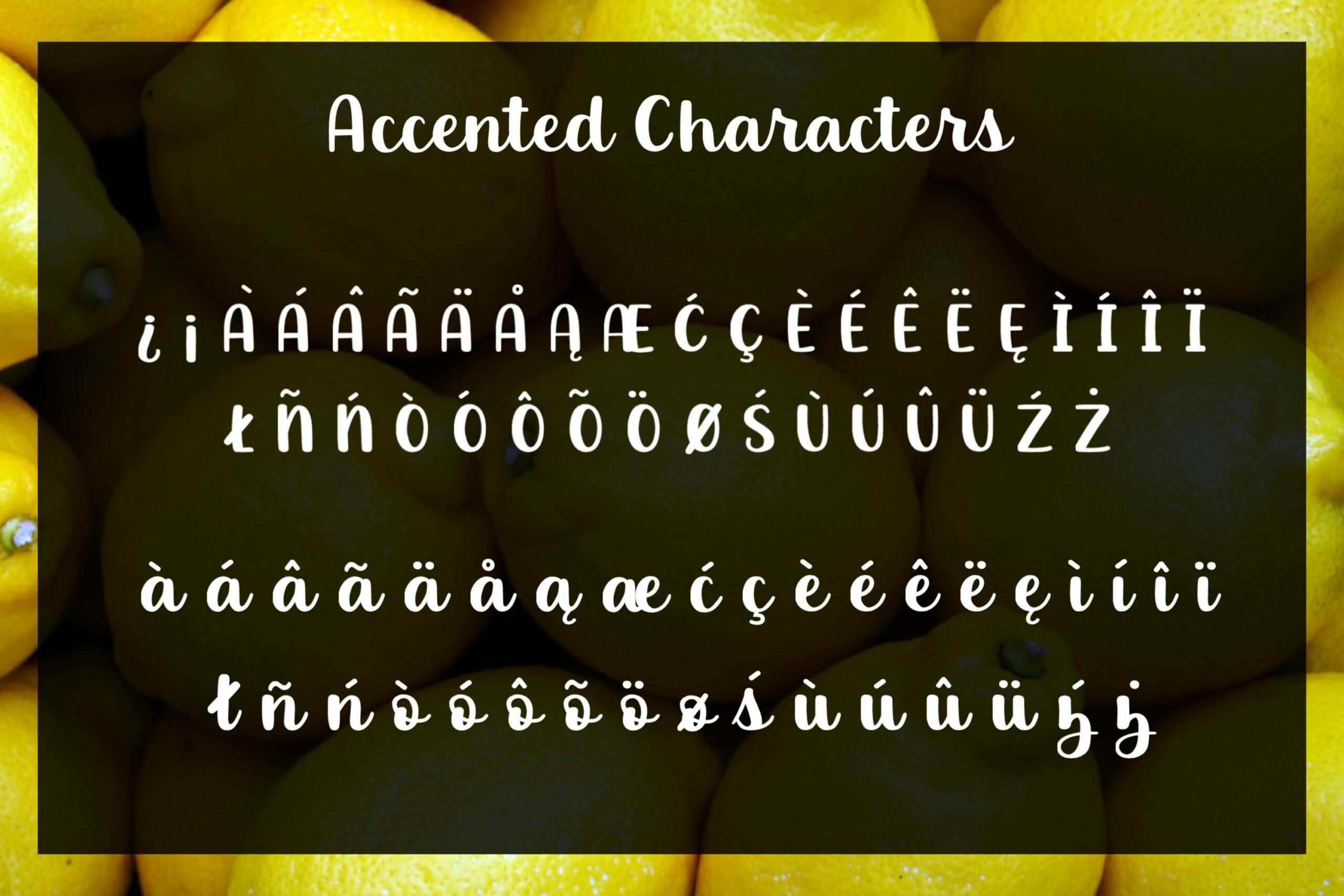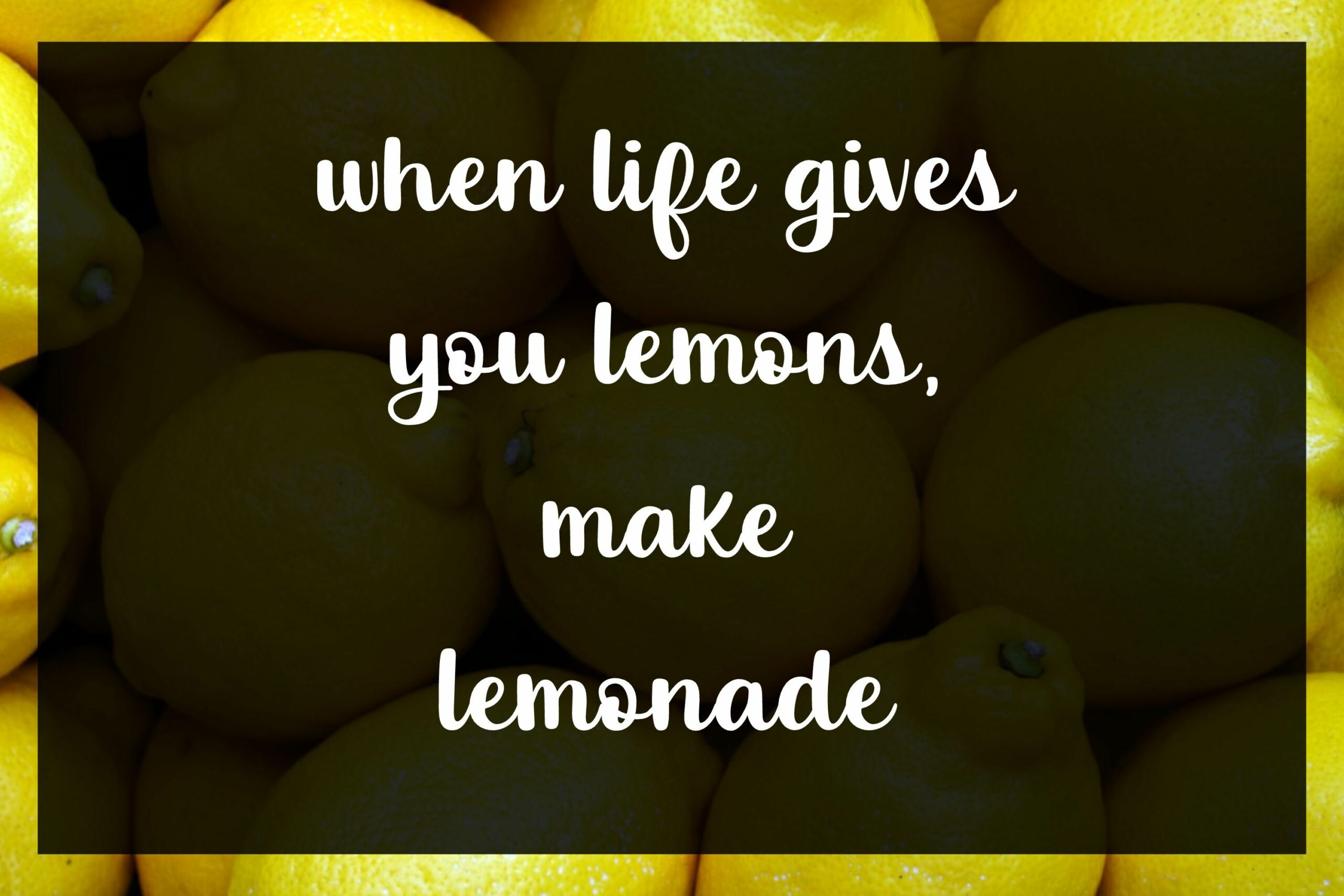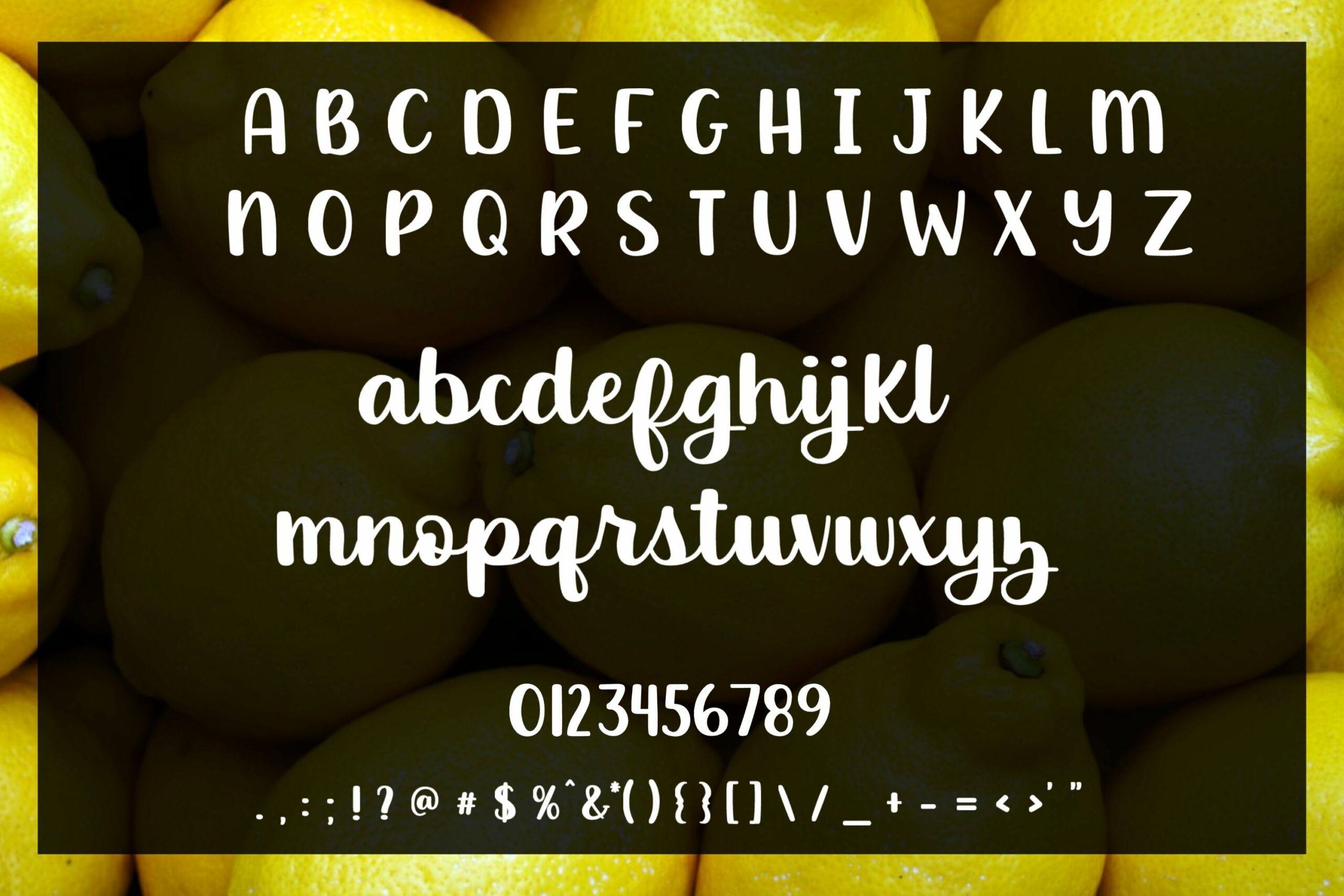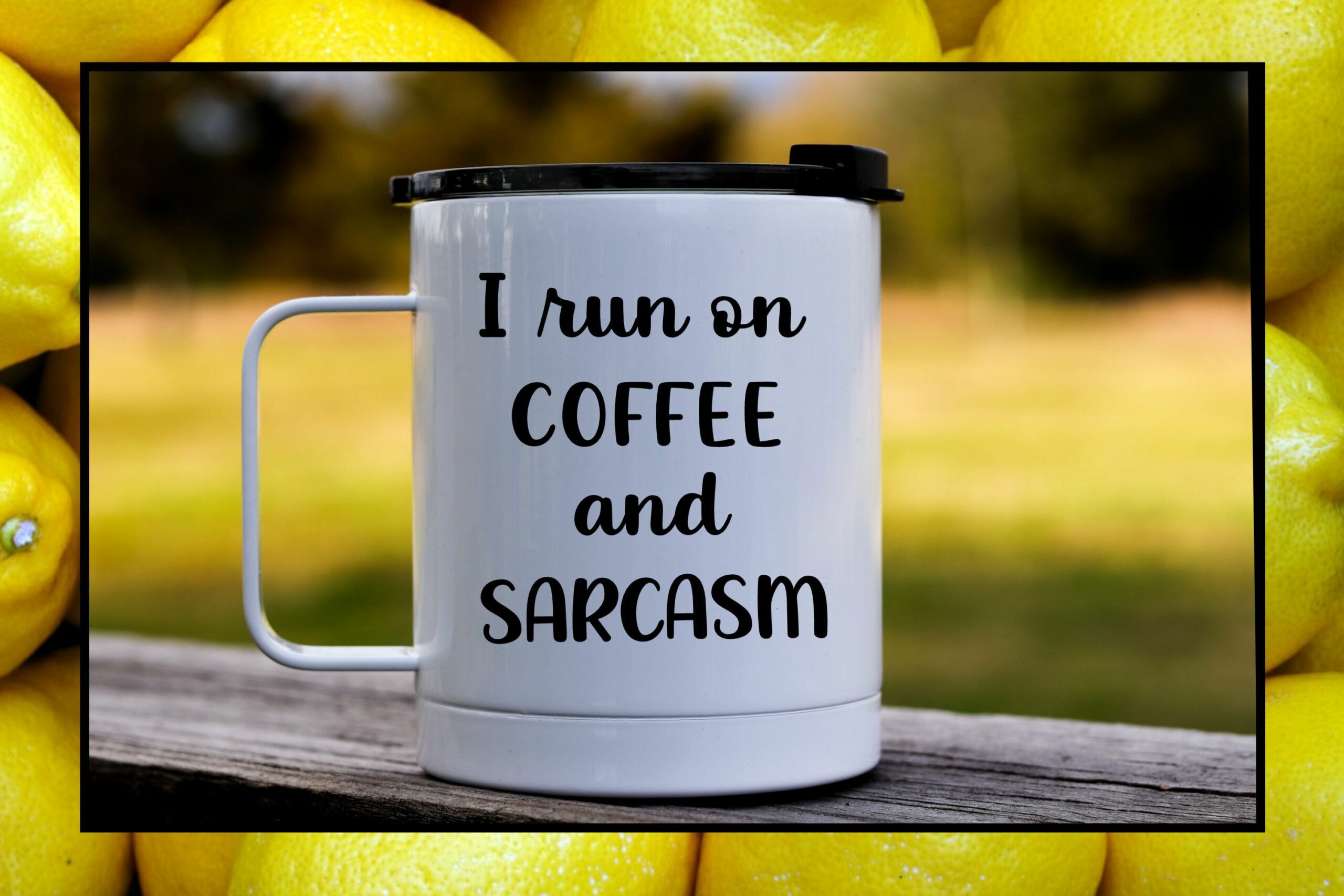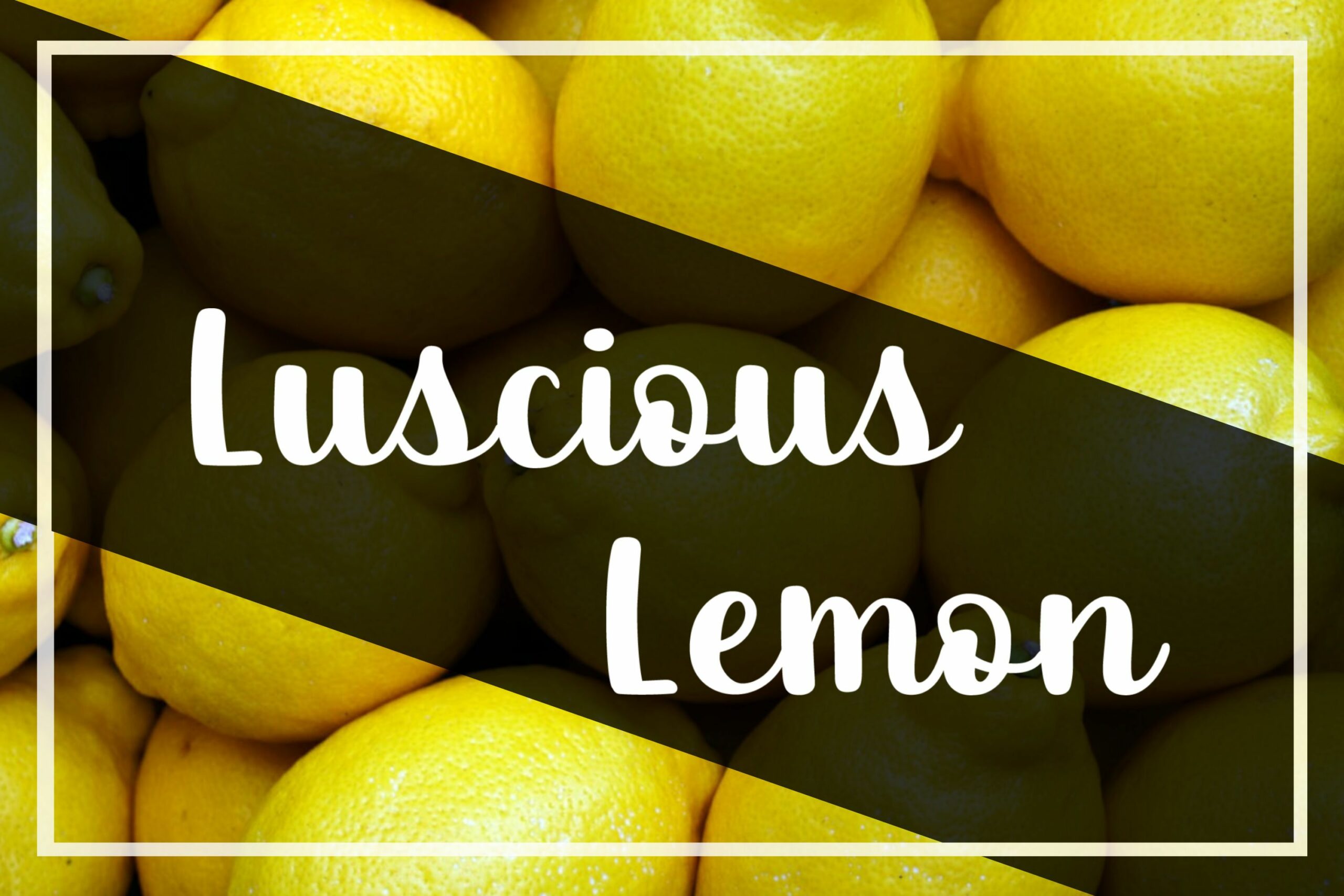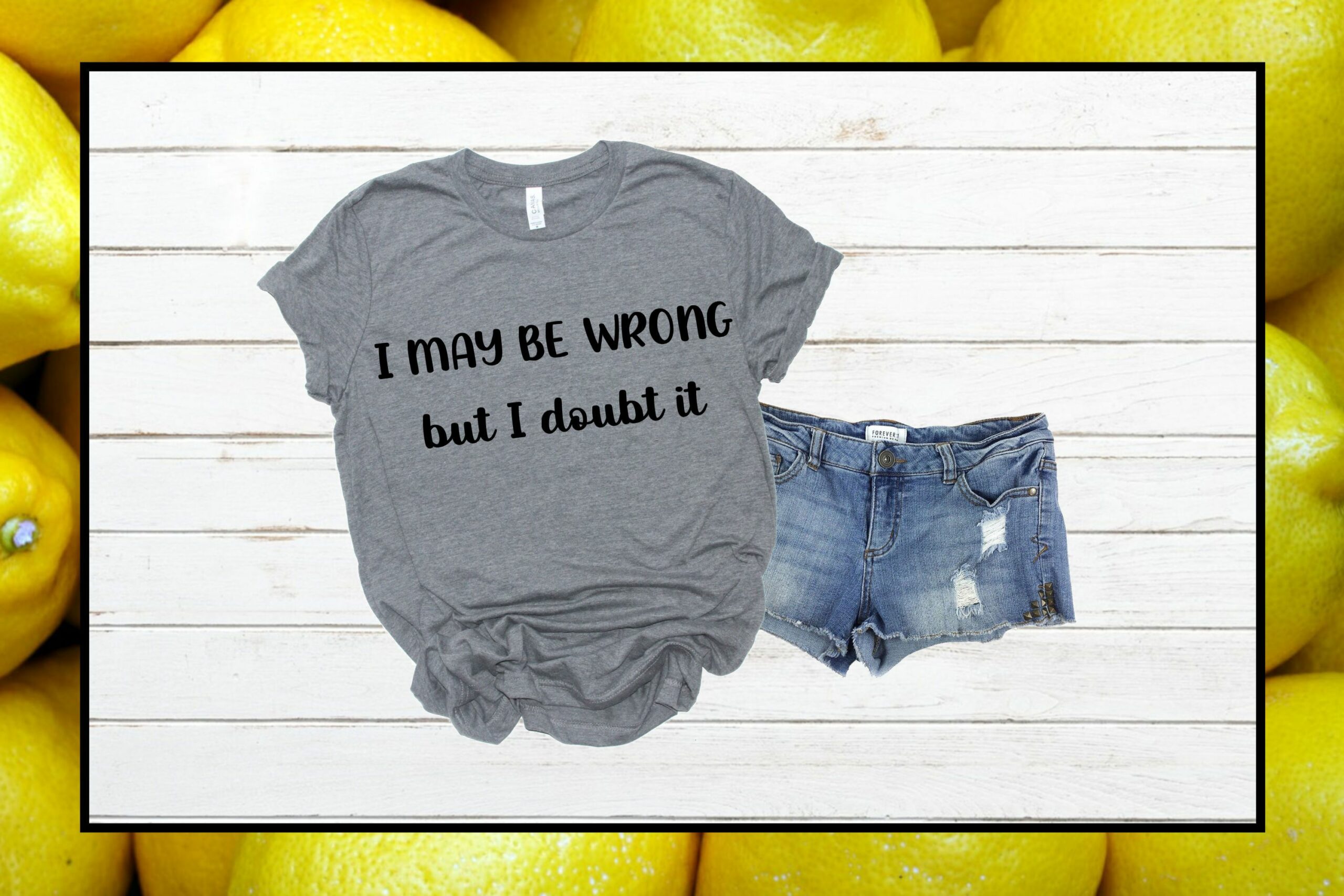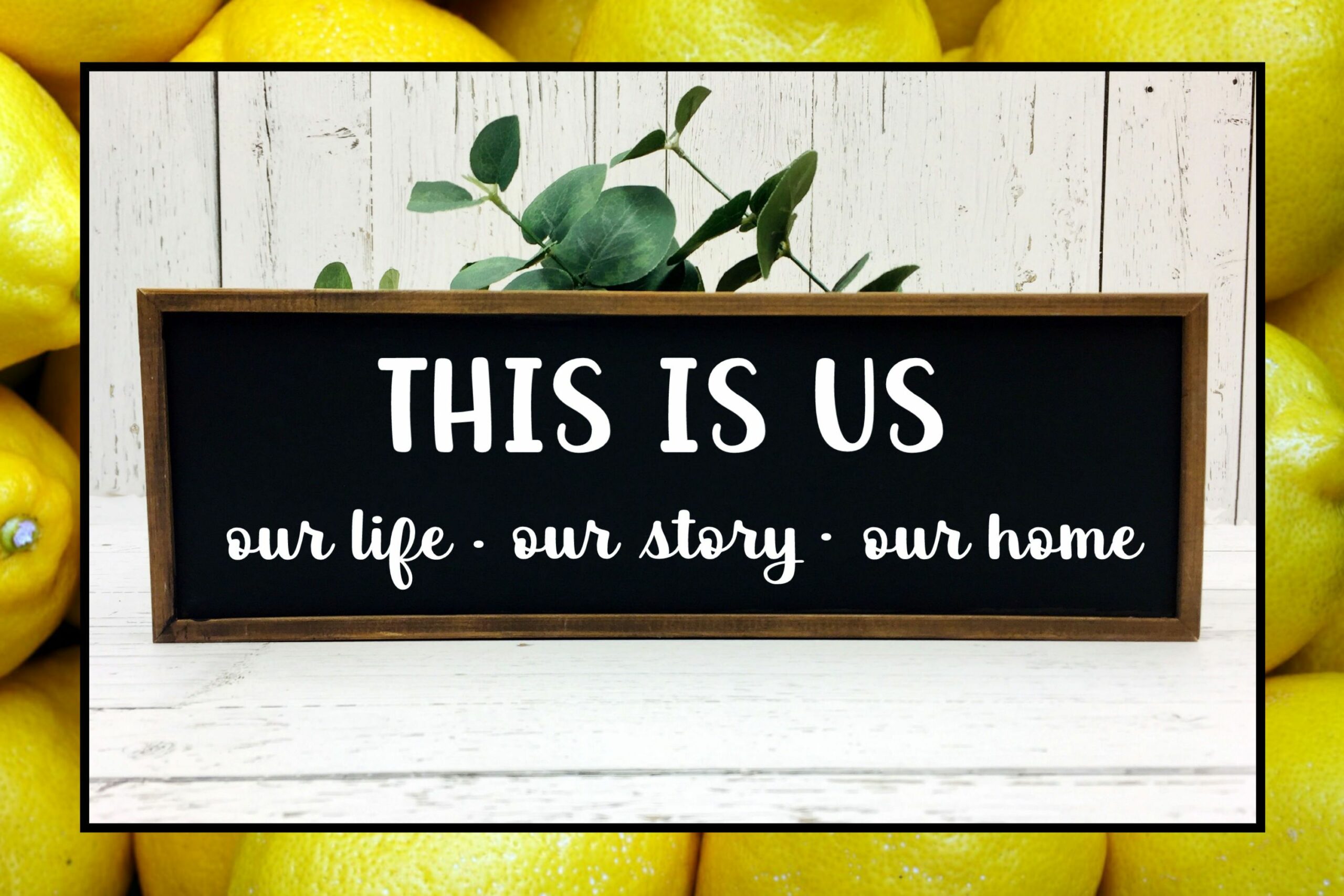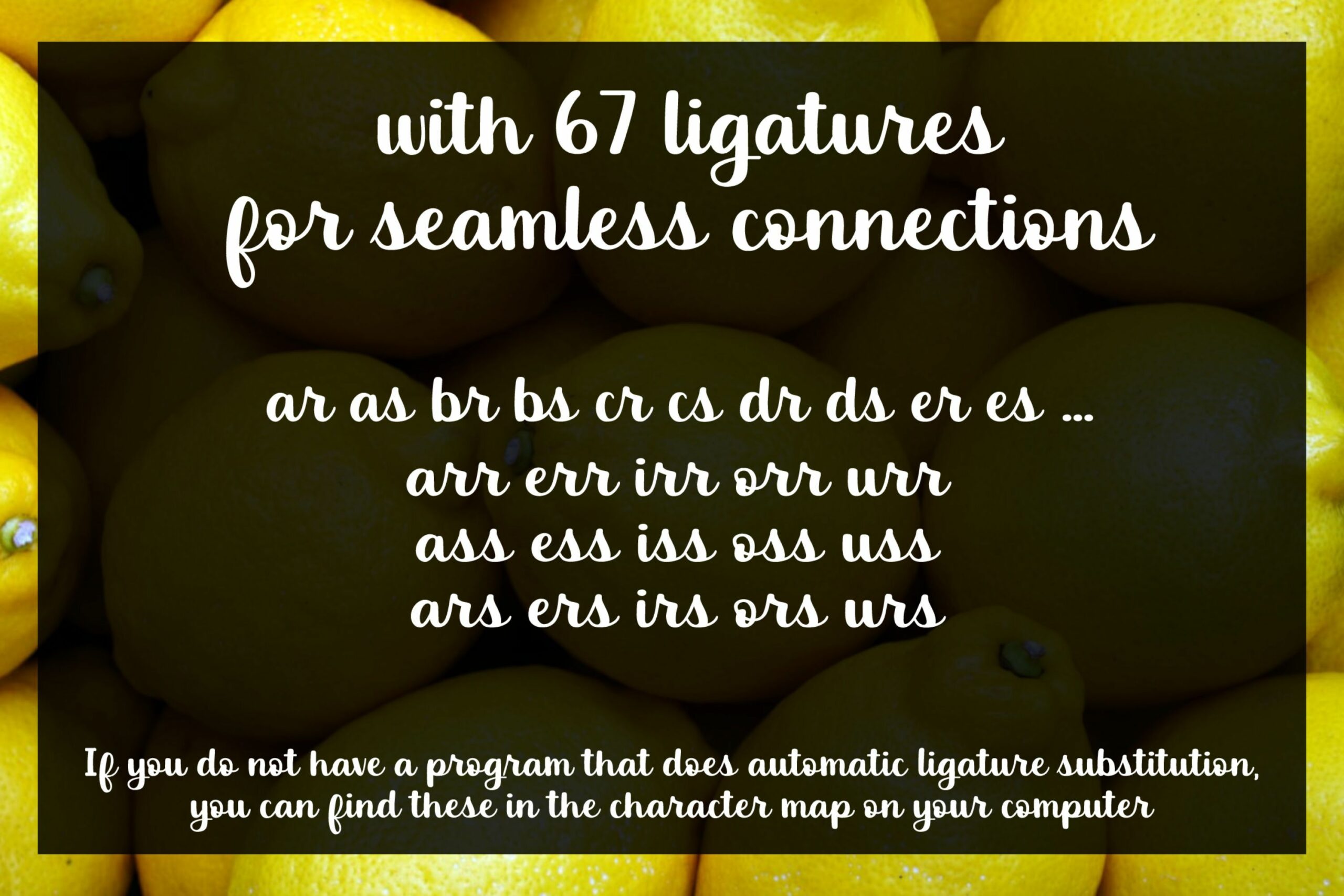
Luscious Lemon – A thick script font
About Luscious Lemon – A thick script font
Luscious lemon is a handlettered script font made up of capital letters A-Z, lowercase letters a-z, ligatures, numbers 0-9 and punctuation. It was created with smooth, thick lines for excellent vinyl cutting results. You can use Luscious Lemon for SVG design, greeting cards, invitations, scrapbooking, and more! This font can be used for personal or commercial projects. File Type: otf